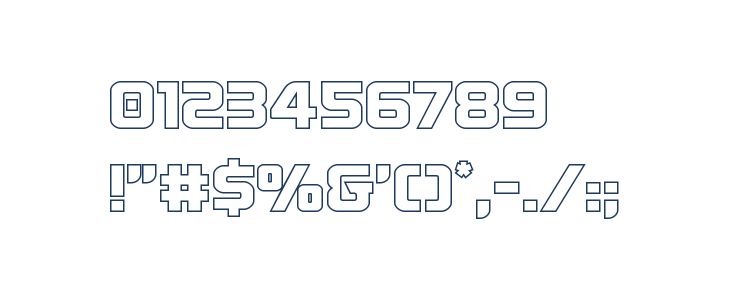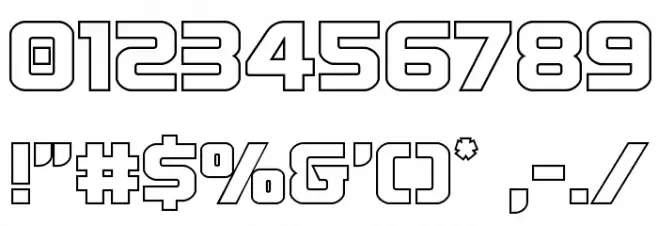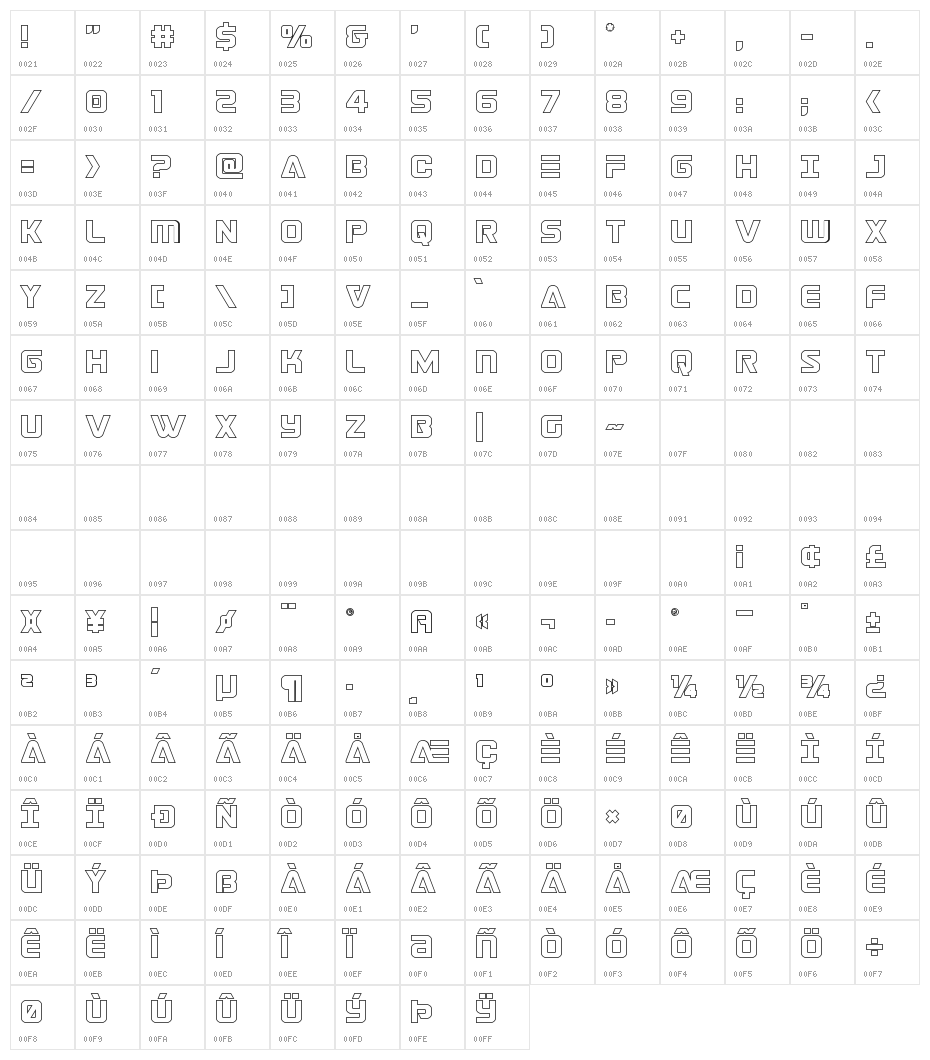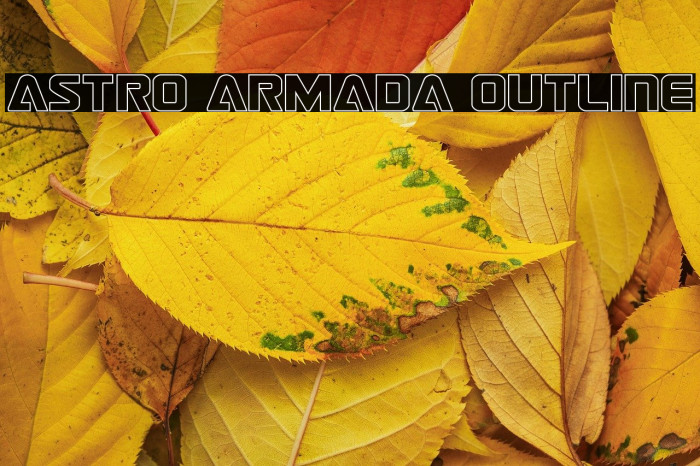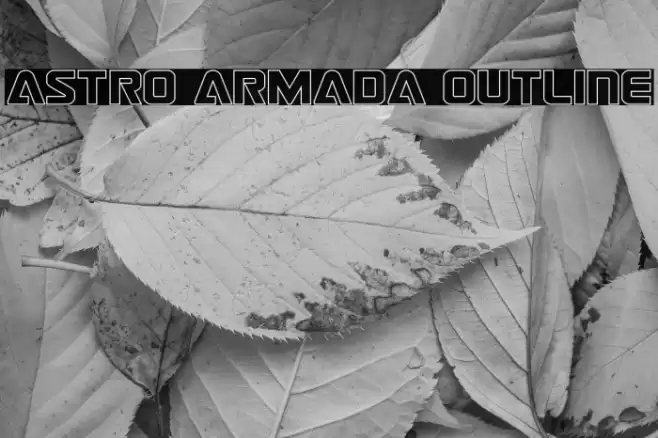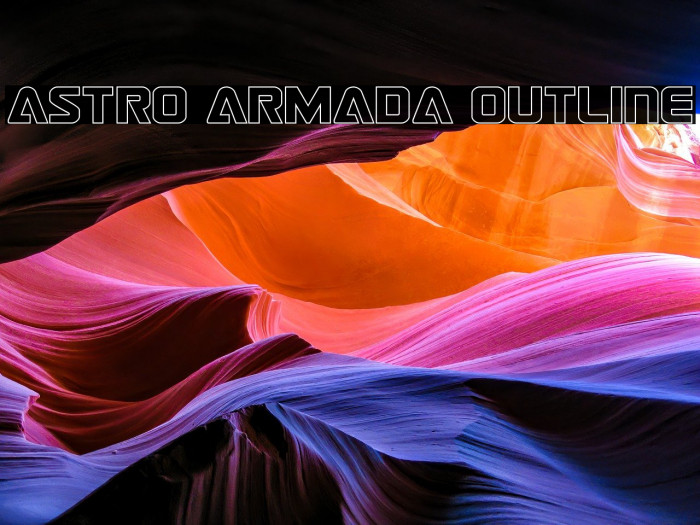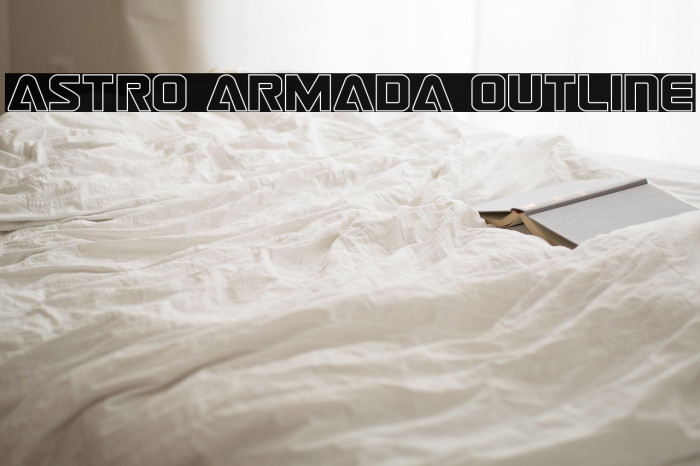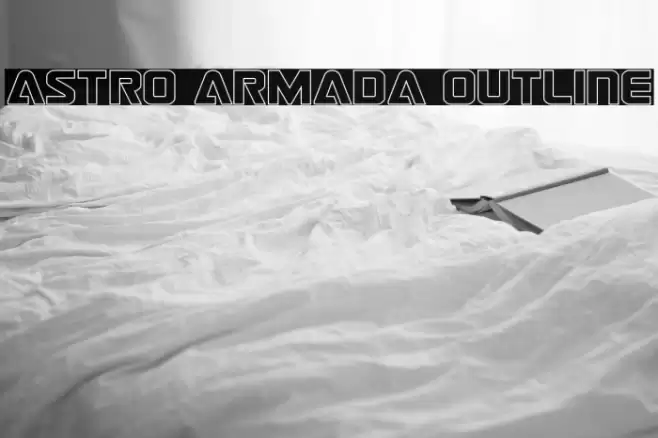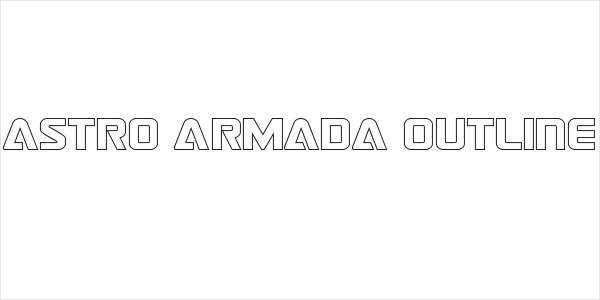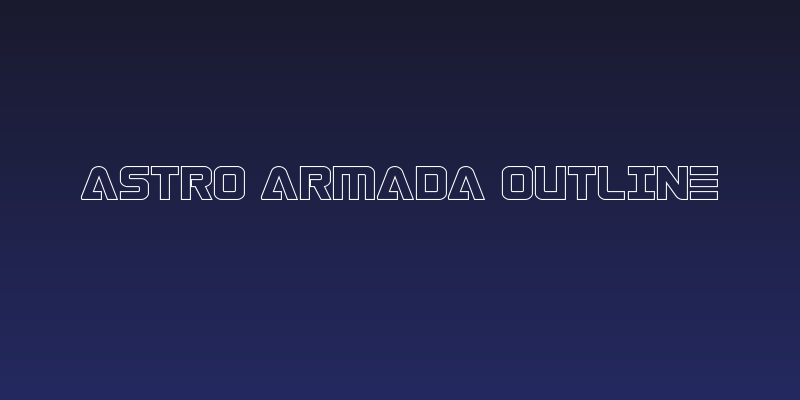
Astro Armada Outline Font
Astro Armada Outline Description
This font features a futuristic and geometric design with an outline style that gives it a distinct, space-age appearance. The characters are constructed with clean, angular lines that form a bold and striking presence. The uppercase and lowercase letters maintain a consistent width, creating a uniform look across the alphabet. Numbers and special characters follow the same design principles, ensuring a cohesive visual identity. The font's outline nature allows for creative layering and color usage, making it versatile for various design applications.
| Proposed Projects | Ideal for sci-fi themed projects, video game titles, movie posters, and branding that requires a modern and technological aesthetic. |